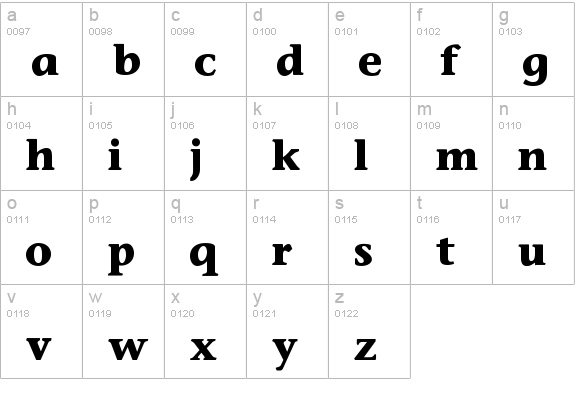
StoneInfBold Font Details
StoneInfBold is a bold and sturdy typeface that exudes strength and reliability. Its robust letterforms make a powerful statement while maintaining a touch of elegance. Perfect for headlines, titles, and logos, this font commands attention and leaves a lasting impression. Best of all, StoneInfBold is available for free download at FontsMarket.com. Whether you're a designer looking to make a bold statement or a business owner seeking a strong visual identity, this font is a versatile choice that won't break the bank. Download StoneInfBold today and add a touch of sophistication to your projects.